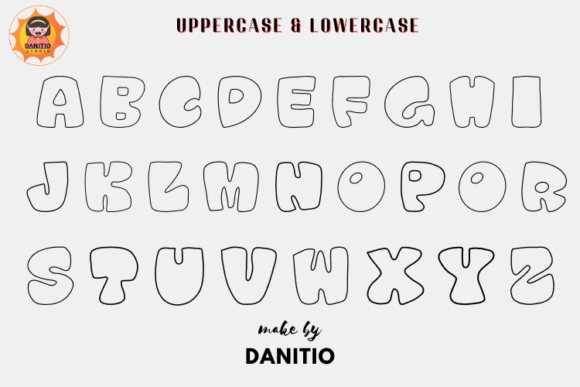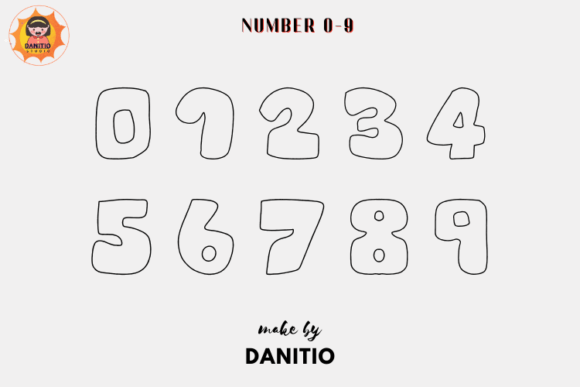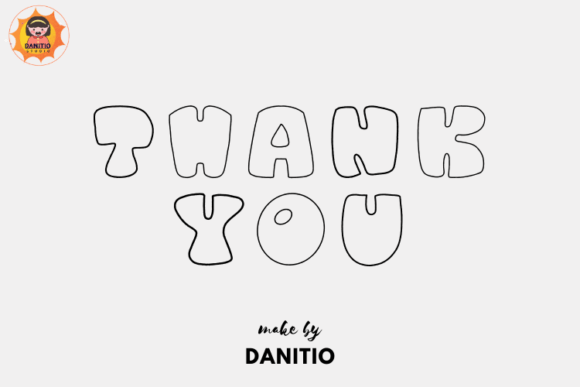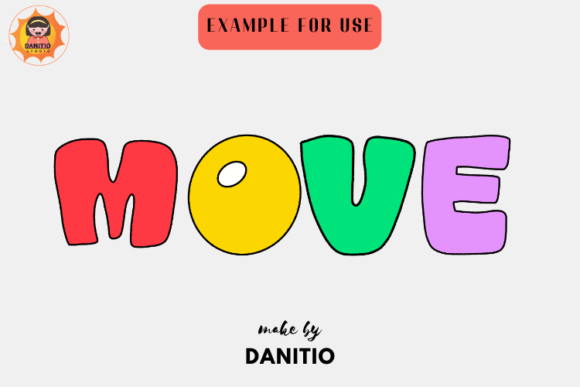
Introduction to Move Font
The Move is a simple and lovely display font with timeless charm.
Clean lines and rounded edges evoke a sense of simplicity, approachability, and warmth Perfect for vintage-inspired logo and packaging designs, it adds a touch of sweetness and fun to any project.